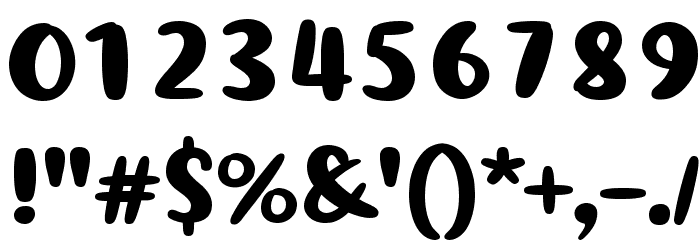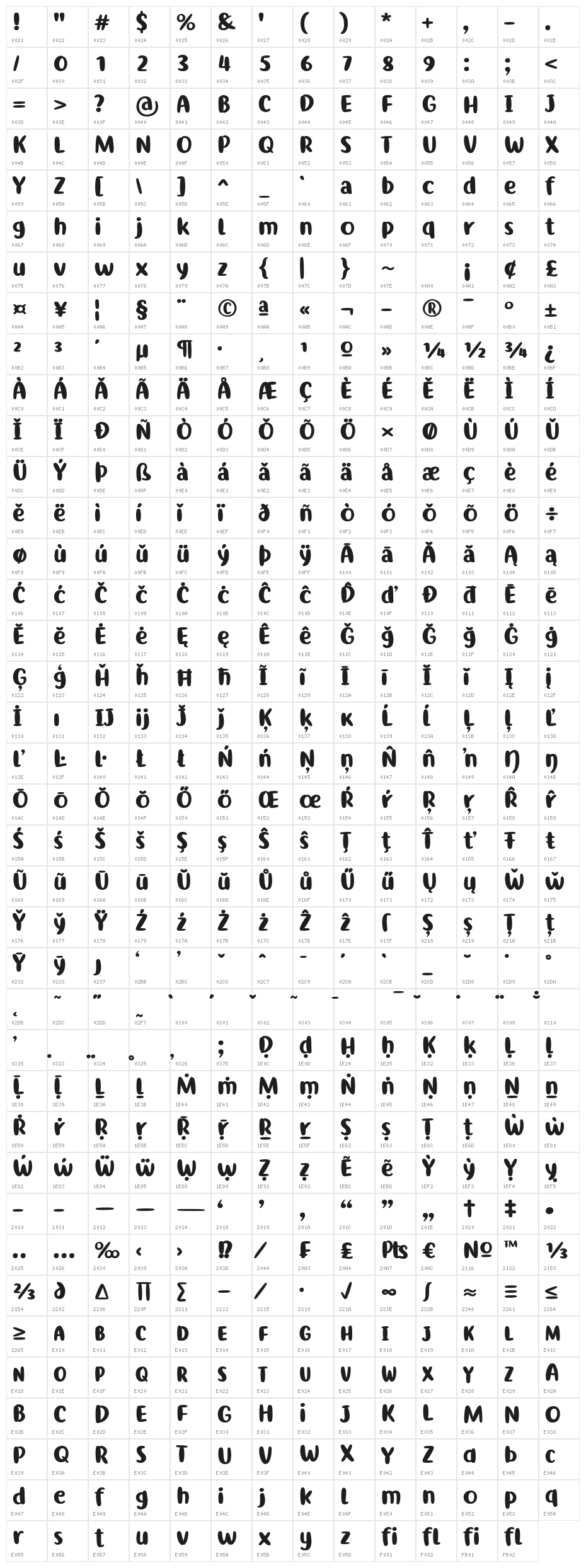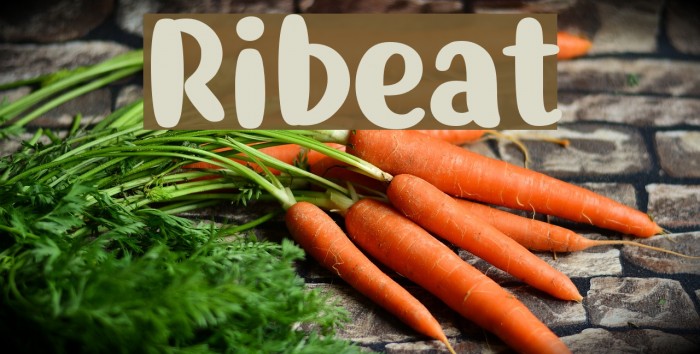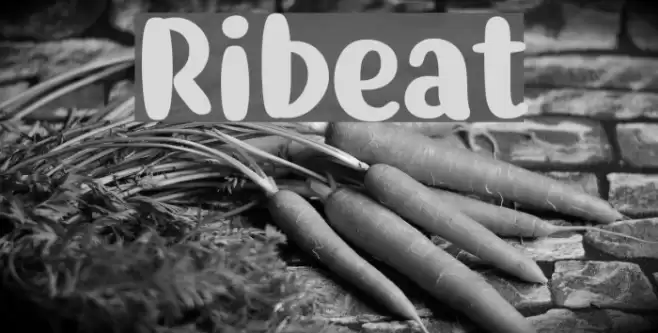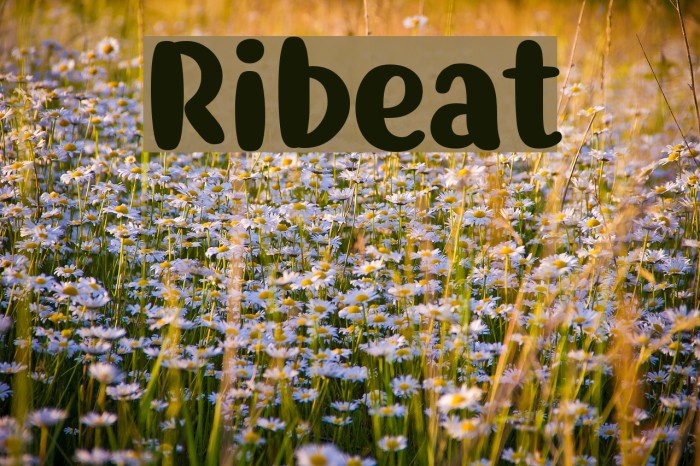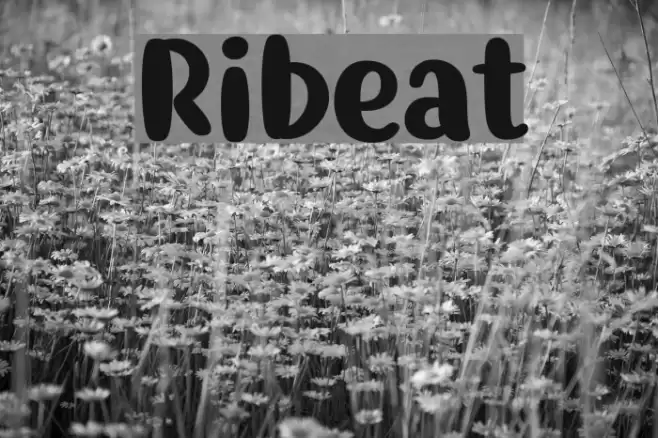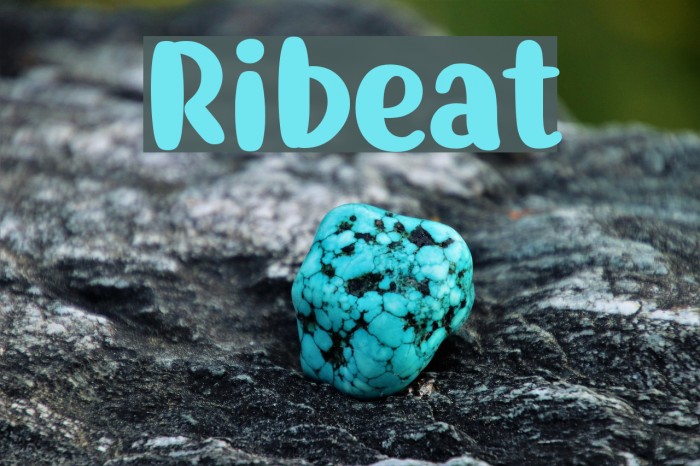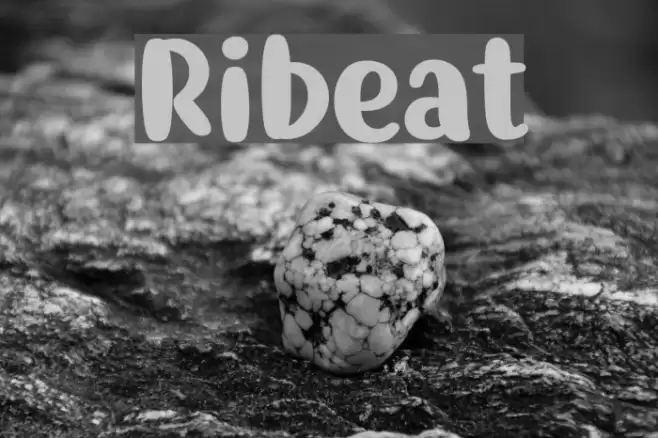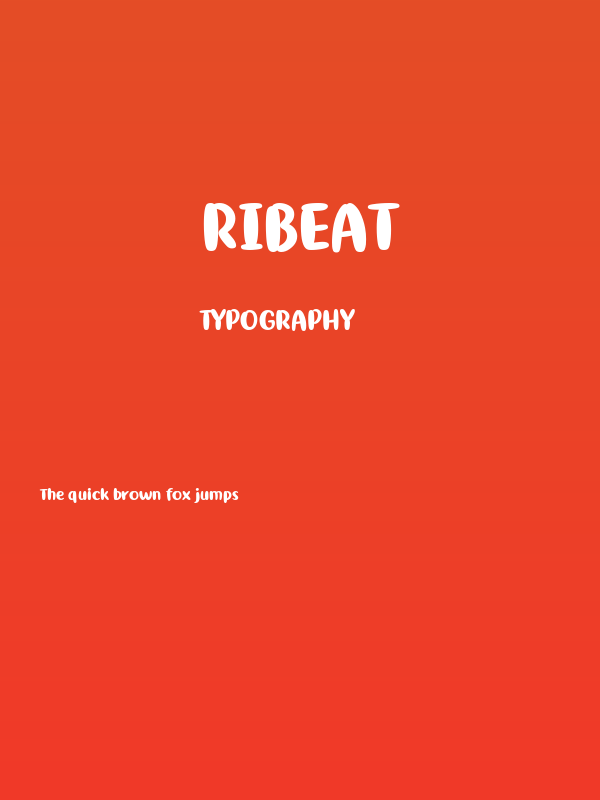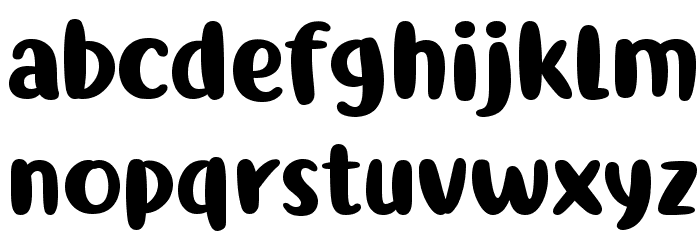
Ribeat Font
Ribeat Description
This playful and bold font features rounded, thick strokes that give it a friendly and approachable appearance. The characters are slightly irregular, adding a whimsical touch to the overall design. The uppercase and lowercase letters maintain a consistent style, with smooth curves and a uniform thickness that enhances readability. The numerals are equally bold and rounded, matching the style of the alphabet. Special characters are creatively designed, maintaining the font's playful essence. This font is ideal for projects that require a fun and informal tone.
| Proposed Projects | Ideal for children's books, playful branding, casual invitations, and creative posters. |